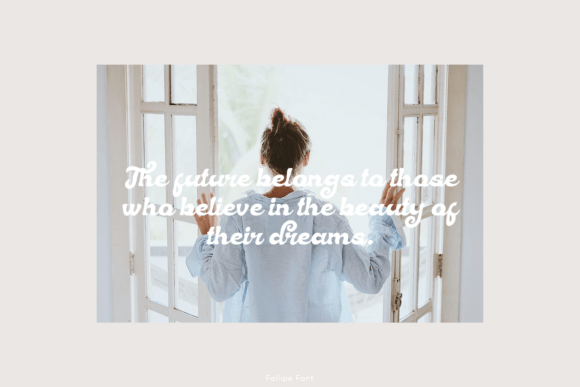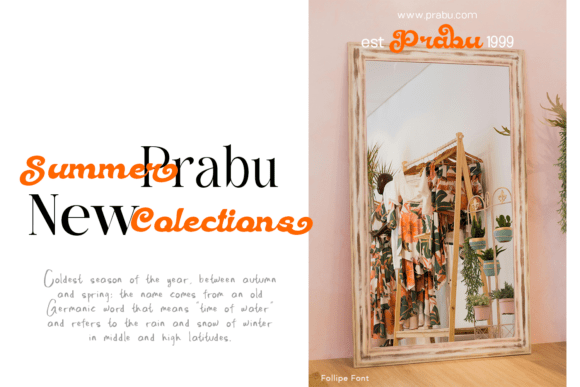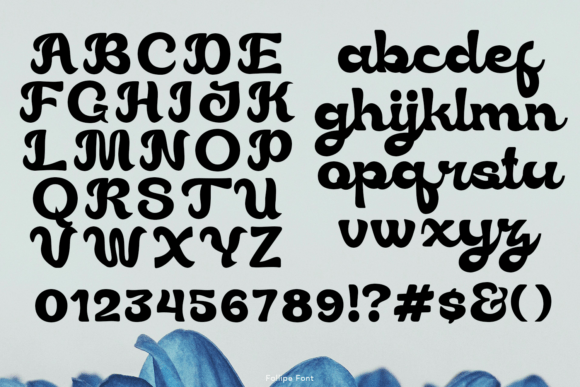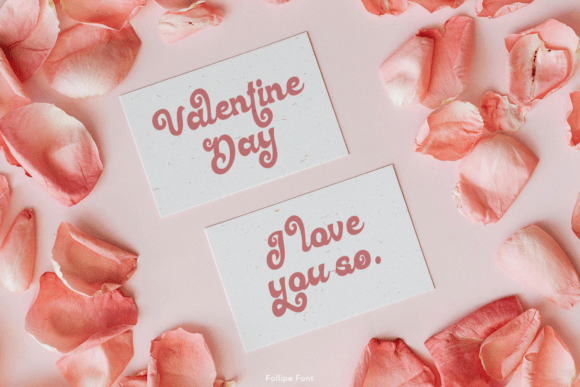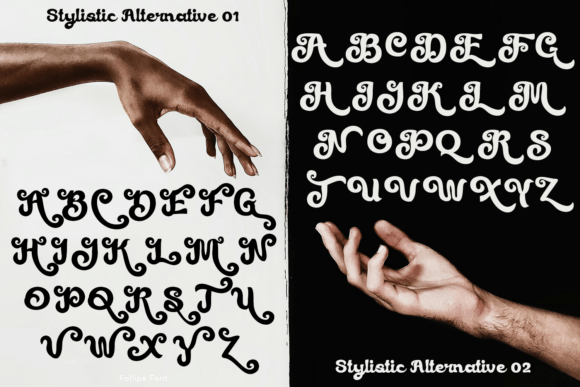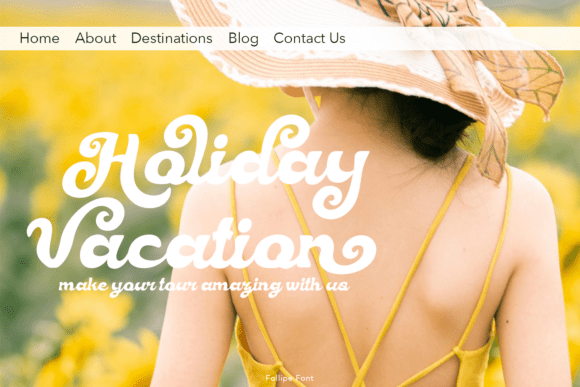
Introduction to Follipe Font
Follipe is a groovy font 80’s script with curly style that comes with a lot alternative and ligature.
Groovy and refined, you can explore and combine to create rhythm for comfortable reading This font is perfect for any projects, such as logotypes, stickers, greeting/wedding cards, packaging design, headlines, brand identity, posters, magazines, books, Instagram, websites, and many more.
Follipe Font offers exceptional quality and versatility, making it a valuable addition to your design toolkit. Whether you’re creating for personal projects or commercial use, Follipe Font delivers professional results.